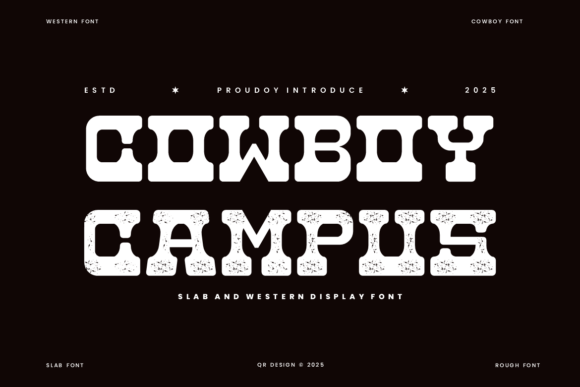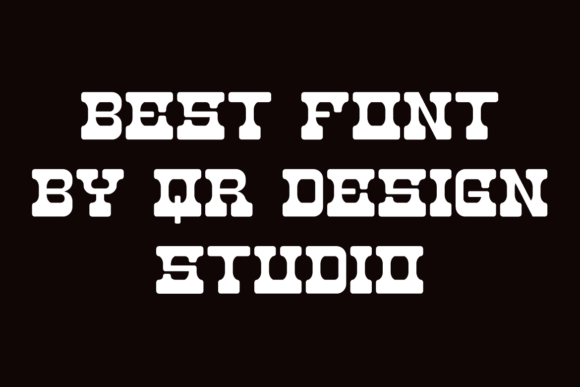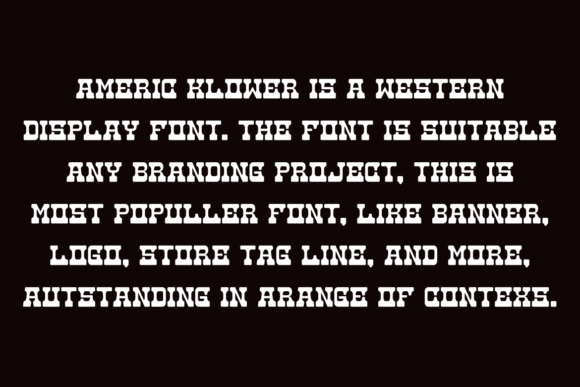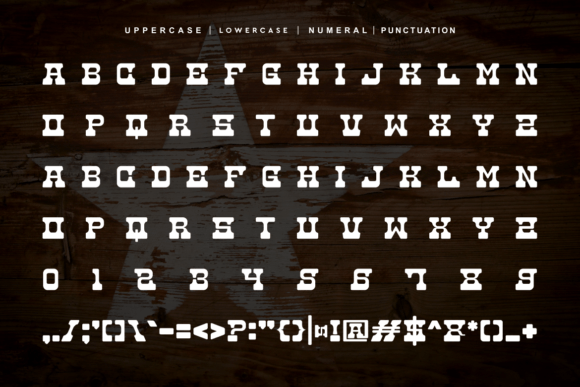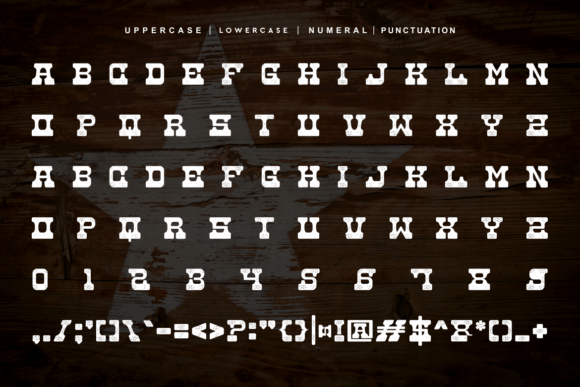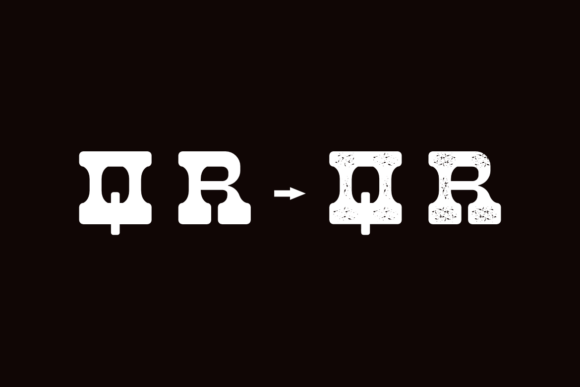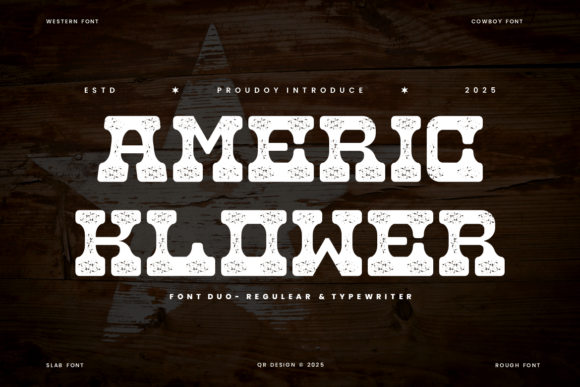
Americ Klower Font: Saddle Up for a Wild West Design Ride
Are you ready to add a touch of rugged charm to your designs? Look no further than the Americ Klower font, a bold slab serif font duo that’s perfect for Western-themed projects, branding, logos, posters, and more. This textured, vintage-inspired font captures the essence of cowboy culture, bringing the grit and authenticity of the Wild West to your designs.
Introducing Americ Klower: A Font Duo with a Western Twist
The Americ Klower font duo consists of two styles: Regular and Typewriter. The Regular style boasts a classic slab serif design with a bold, rugged look that’s reminiscent of vintage wanted posters and cowboy signage. The Typewriter style adds a touch of nostalgia with its distressed, typewriter-like texture, giving your designs a retro feel that’s perfect for rustic and adventurous themes.
Capture the Essence of Cowboy Culture
Americ Klower’s textured, vintage-inspired look is designed to evoke the spirit of the Wild West. The font’s distressed detailing adds a layer of authenticity and grit, making it perfect for designs that require a rugged, outdoorsy feel. Whether you’re creating a logo for a Western-themed restaurant, designing a poster for a music festival, or crafting a brand identity for an outdoor gear company, Americ Klower is the perfect choice.
Perfect for Western-Themed Projects
Americ Klower is a versatile font that’s perfect for a wide range of Western-themed projects, including:
- Branding and logos: Create a bold, eye-catching logo that captures the essence of the Wild West.
- Posters and flyers: Design a poster for a Western-themed event or create a flyer for a cowboy-inspired product.
- Packaging and labels: Add a touch of rugged charm to your product packaging with Americ Klower.
- Web design: Create a website that transports visitors to the Wild West with Americ Klower’s bold, textured look.
Key Features of Americ Klower
So, what sets Americ Klower apart from other fonts? Here are some key features that make this font duo stand out:
- Bold slab serif design: Americ Klower’s bold, slab serif design makes it perfect for headlines, titles, and short text passages.
- Textured, vintage-inspired look: The font’s textured, vintage-inspired look adds a layer of authenticity and grit to your designs.
- Distressed detailing: The distressed detailing in Americ Klower adds a touch of ruggedness and wear, making it perfect for rustic and adventurous designs.
- Two styles: The font duo includes two styles: Regular and Typewriter, giving you flexibility and versatility in your designs.
Get Ready to Saddle Up with Americ Klower
If you’re looking for a font that captures the essence of the Wild West, look no further than Americ Klower. With its bold, slab serif design, textured, vintage-inspired look, and distressed detailing, this font duo is perfect for Western-themed projects, branding, logos, posters, and more. So, saddle up and get ready to add a touch of rugged charm to your designs with Americ Klower.
In conclusion, Americ Klower is a bold, versatile font duo that’s perfect for designers and crafters looking to add a touch of rugged charm to their designs. With its textured, vintage-inspired look and distressed detailing, this font captures the essence of cowboy culture and the Wild West. Whether you’re creating a logo, poster, or website, Americ Klower is the perfect choice for Western-themed projects. So, why wait? Saddle up and get ready to ride off into the design sunset with Americ Klower.